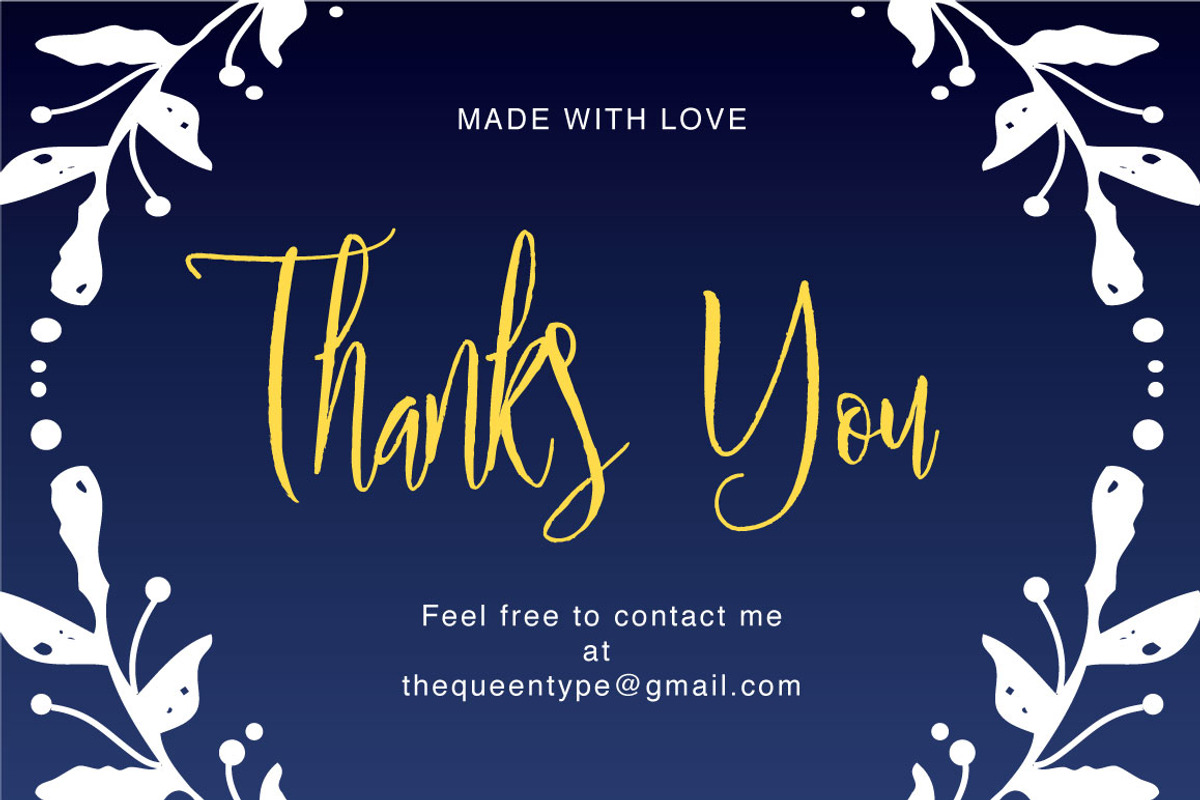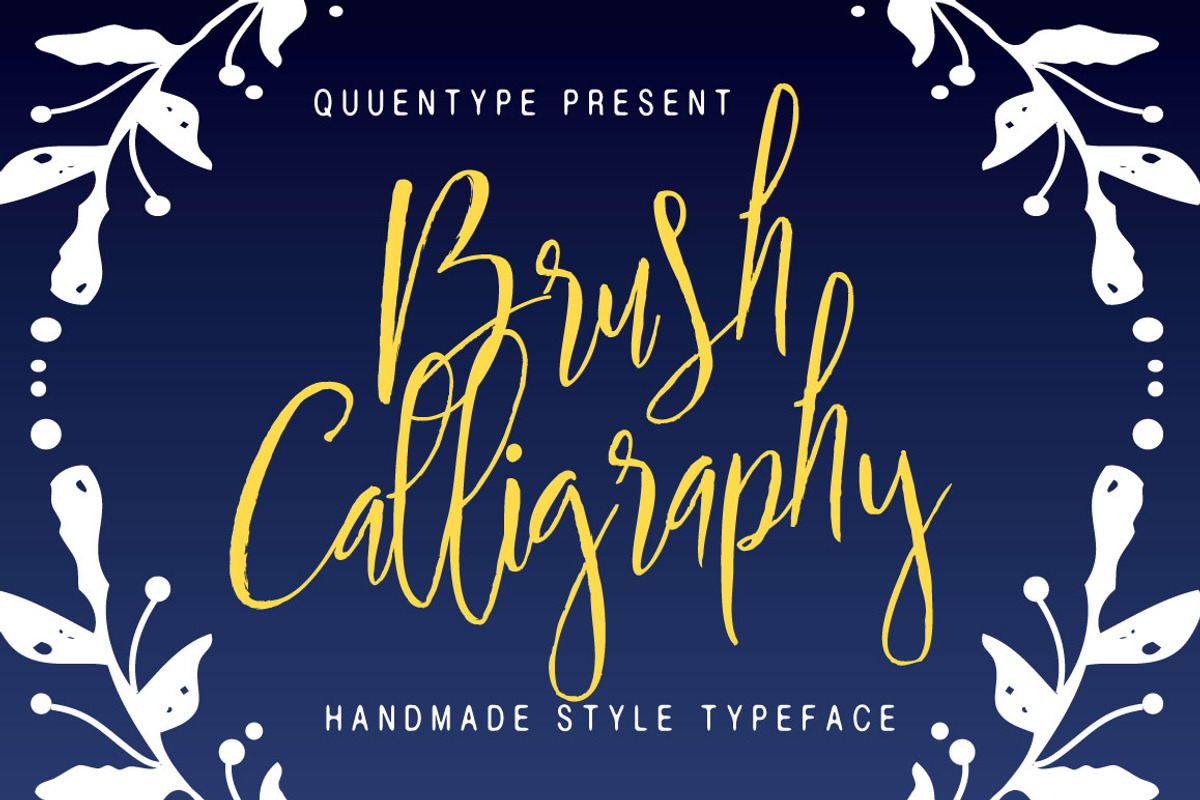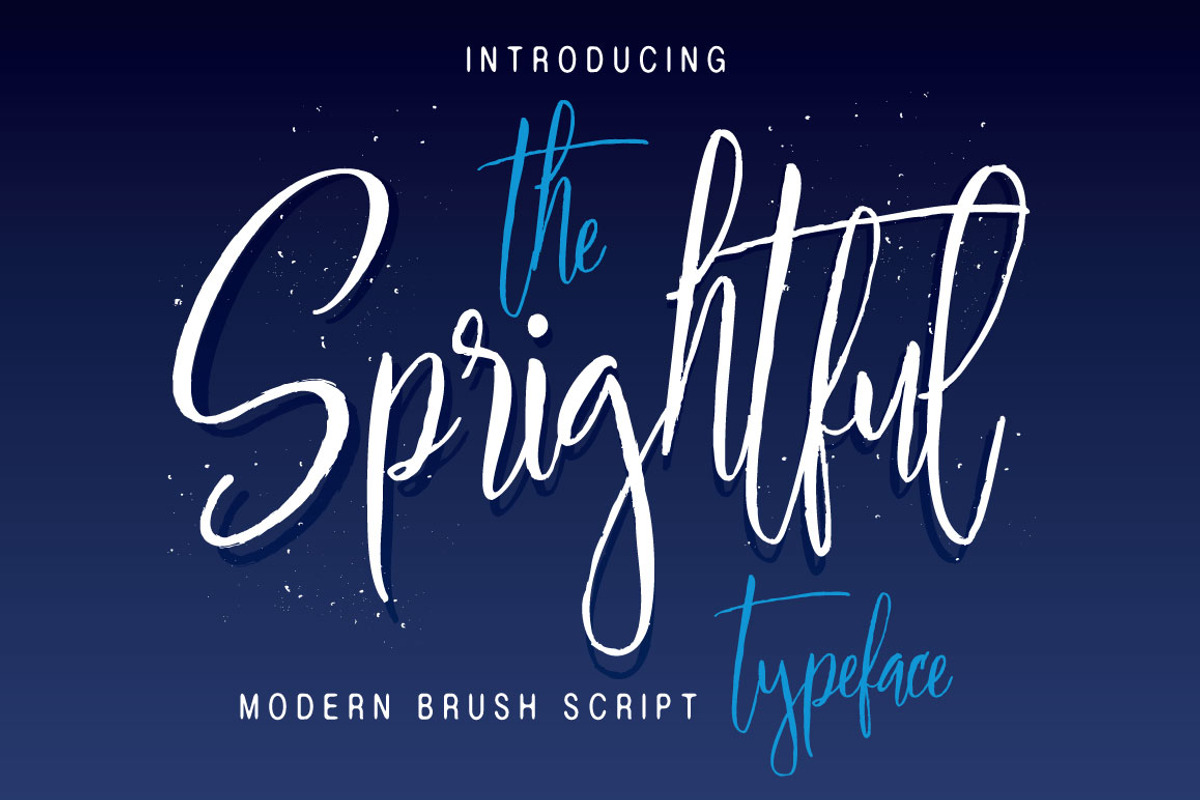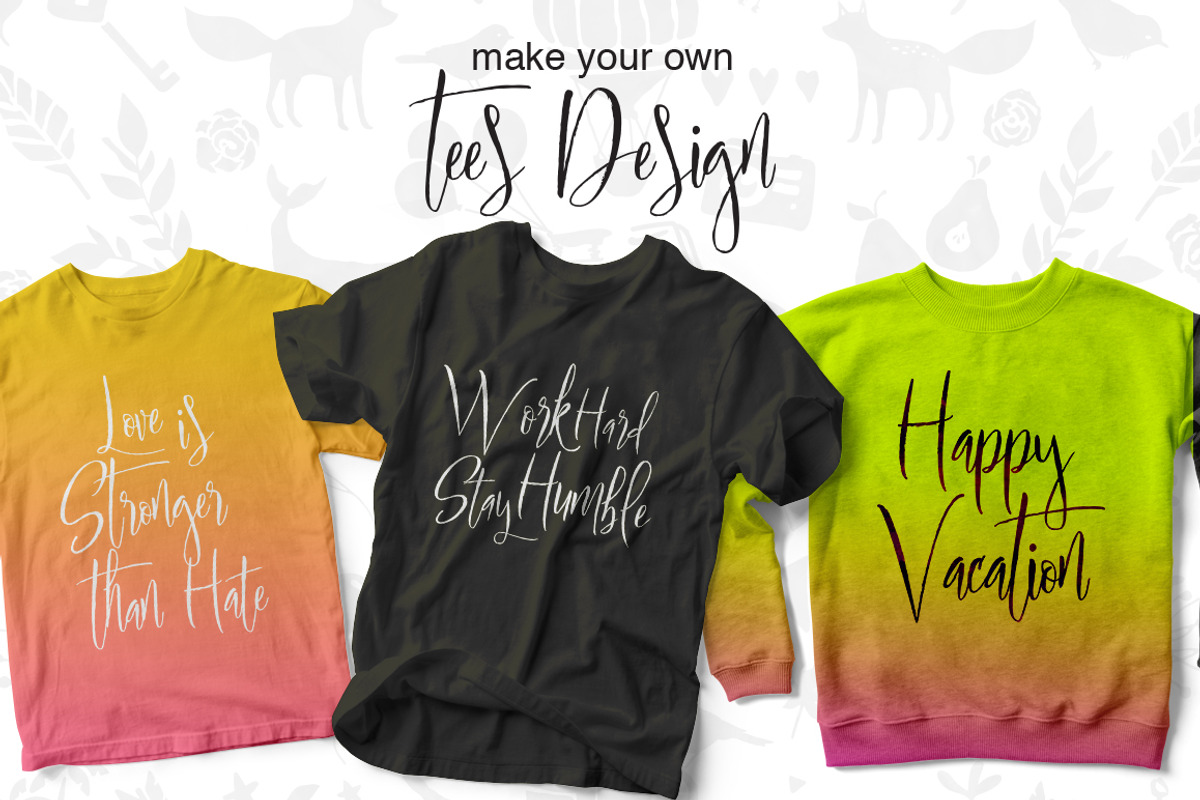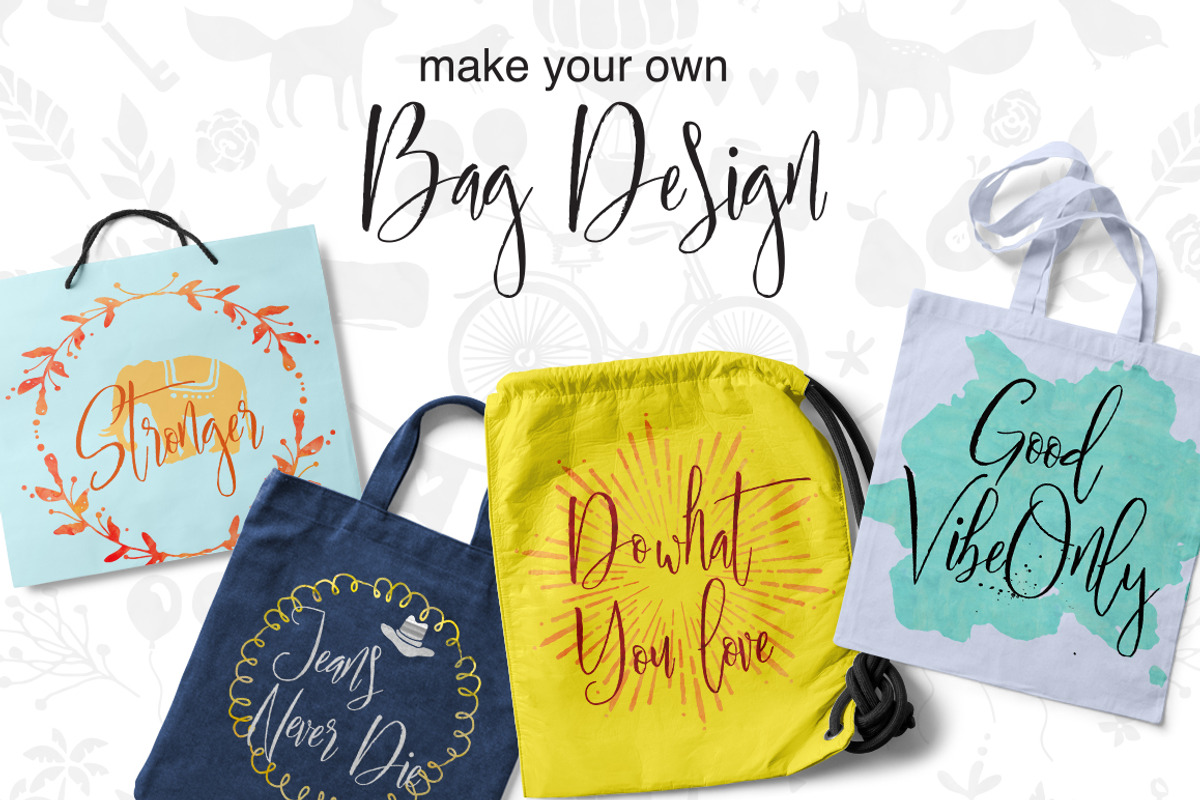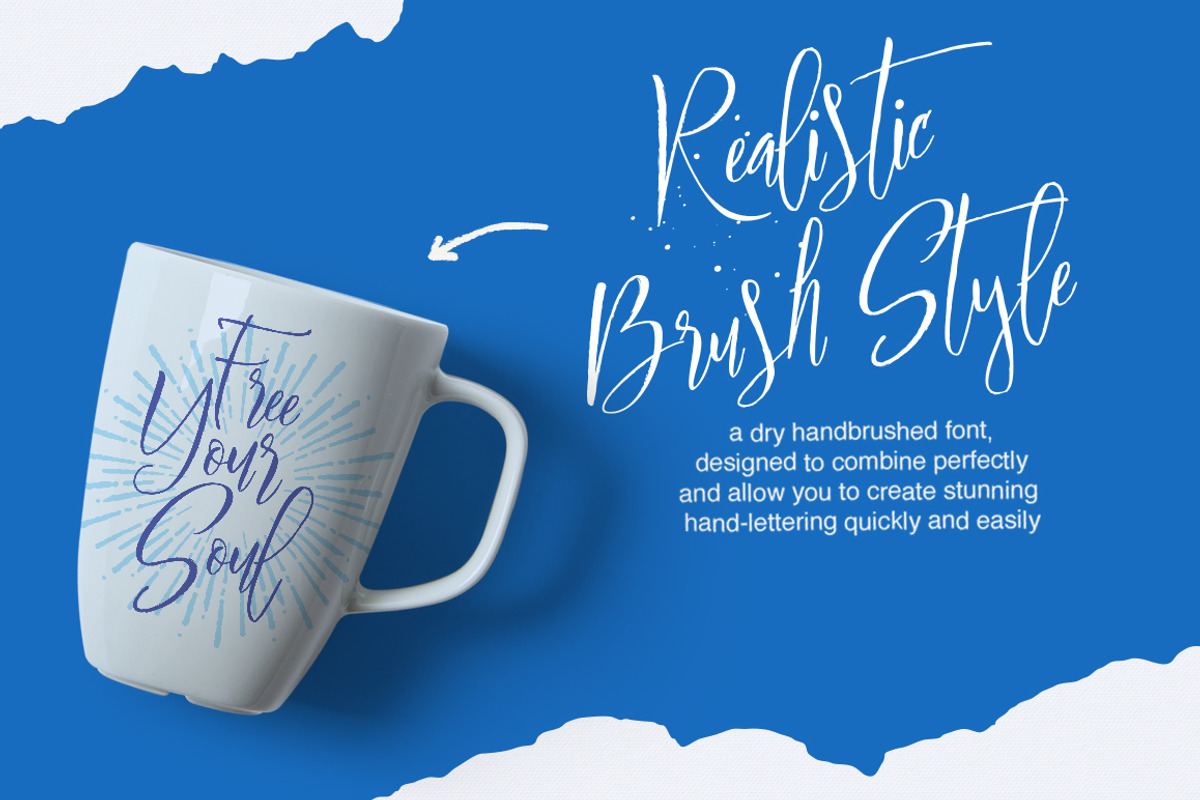
Sprightful Typeface
Sprightful Typeface by QueenType is a font selected for branding, posters, packaging, typography.
- Alternate character contain with Ligature and more.
- Mix and match the alternate characters to add an attractive message to your design.
Why Sprightful Typeface is worth a look
Sprightful Typeface by QueenType fits naturally into Branding, posters, packaging, typography.